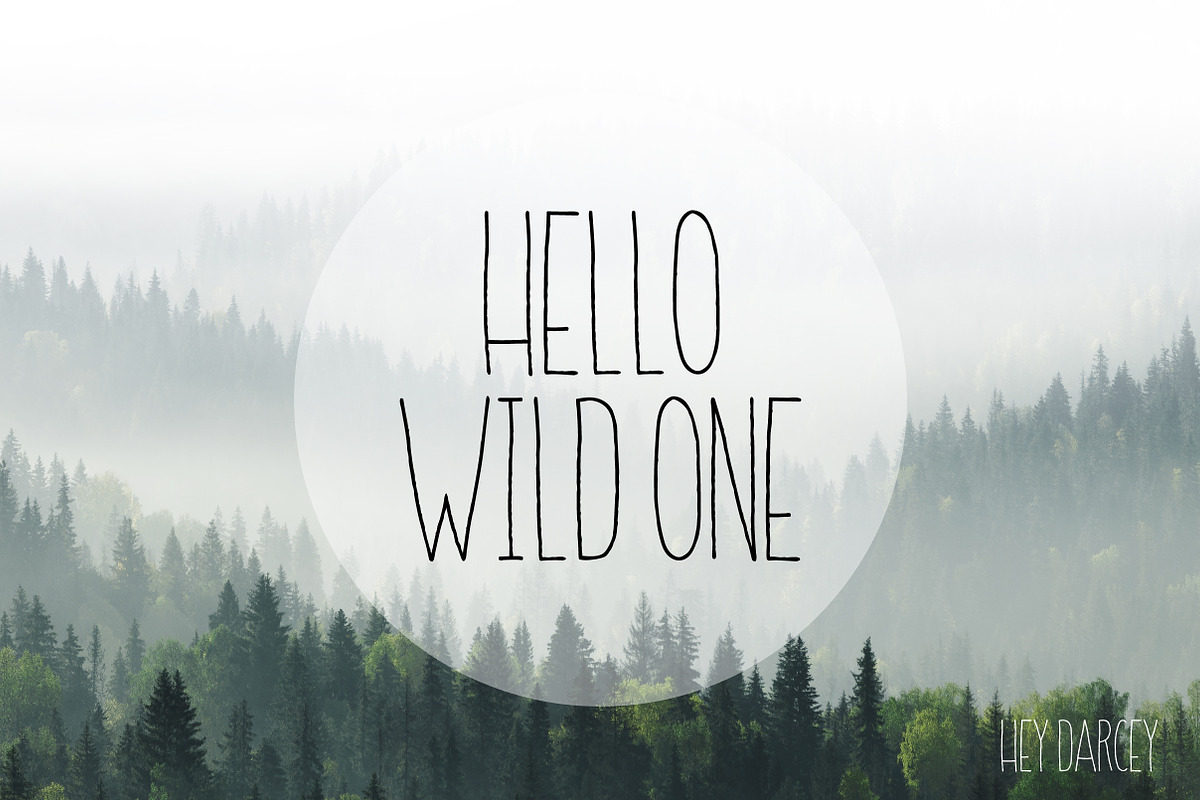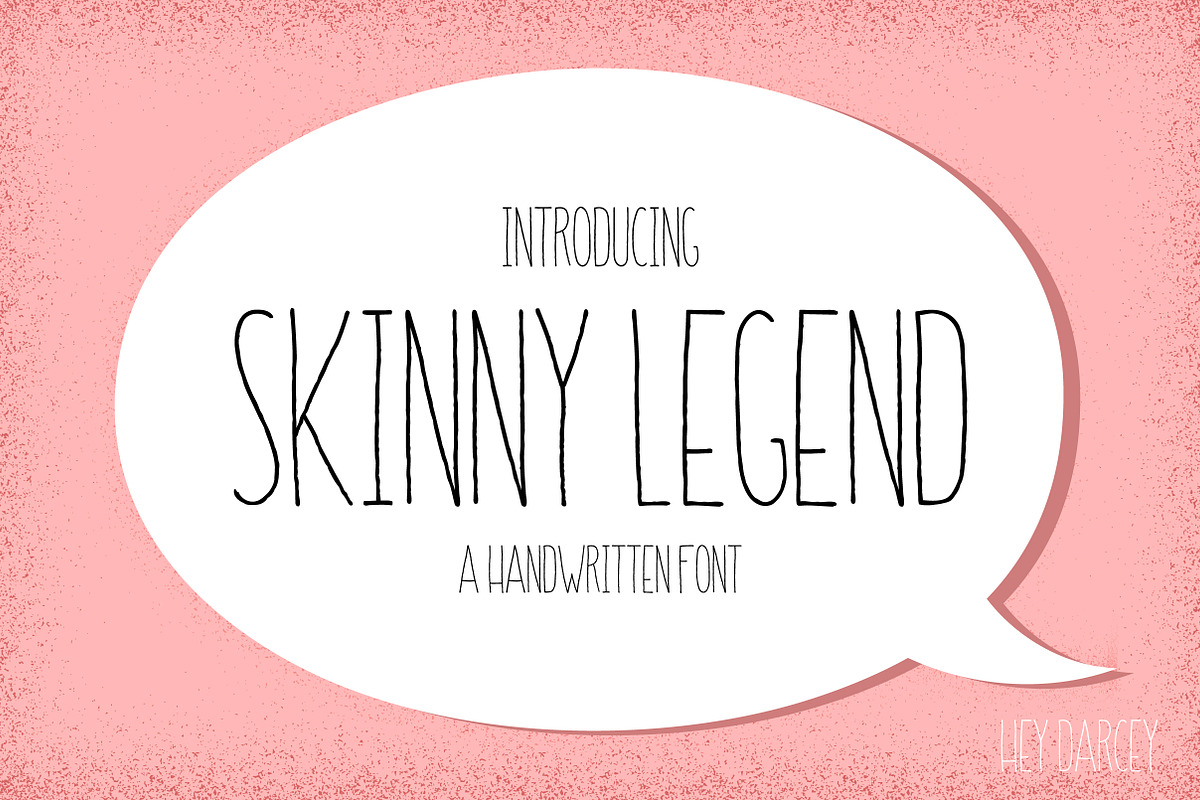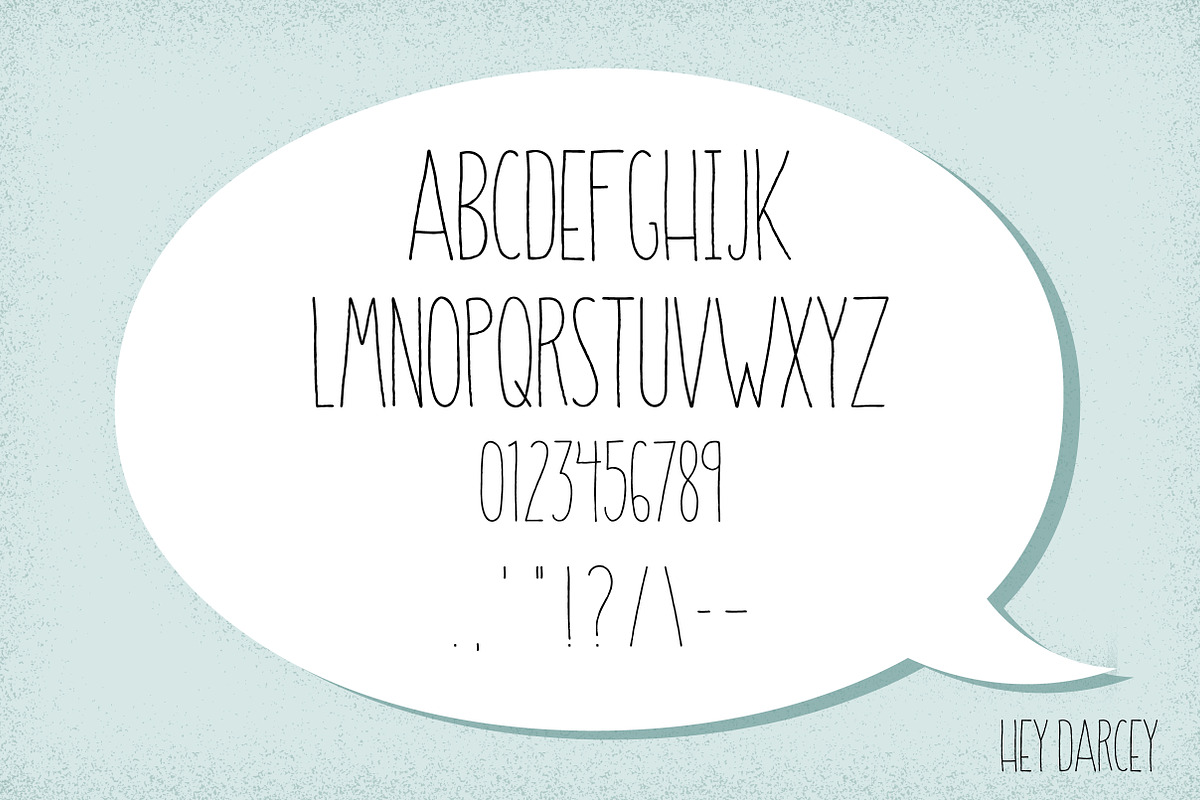
Skinny Legend Handwritten Font
Introducing Skinny Legend, the perfect little handwritten font! Simple and versatile, this font is perfect for any project, personal or commercial.
Why Skinny Legend Handwritten Font is worth a look
Skinny Legend Handwritten Font by Hey Darcey fits naturally into Branding, posters, packaging, typography.